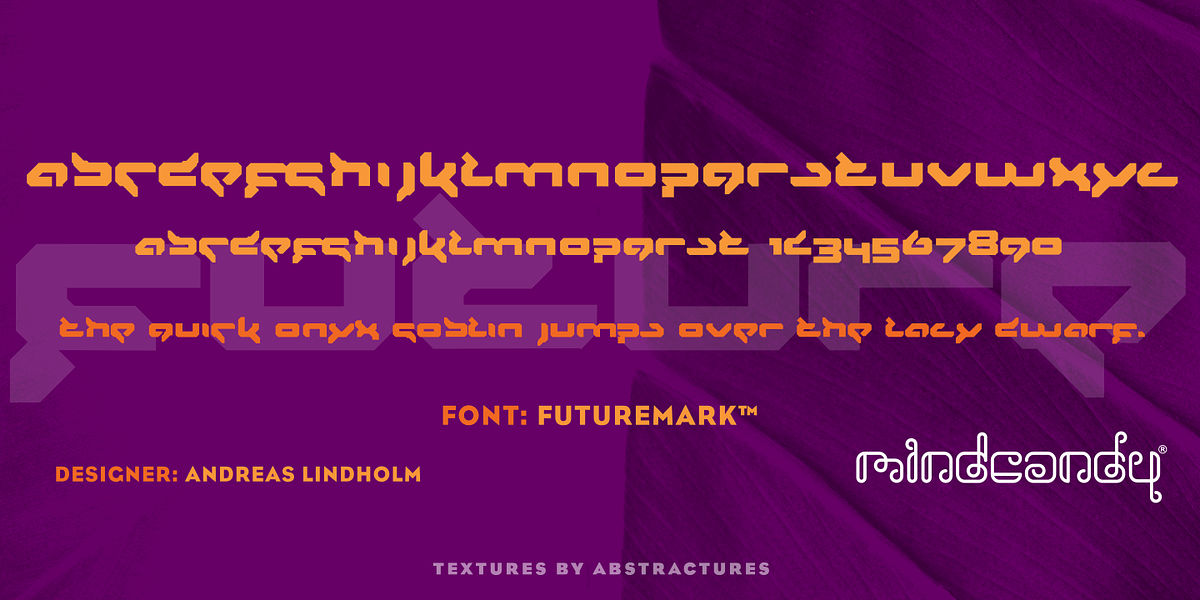
Futuremark™
This lowercase-only font features playful dingbat characters designed for graphic design and illustration purposes. It is a unique novelty font created by Andreas Lindholm.